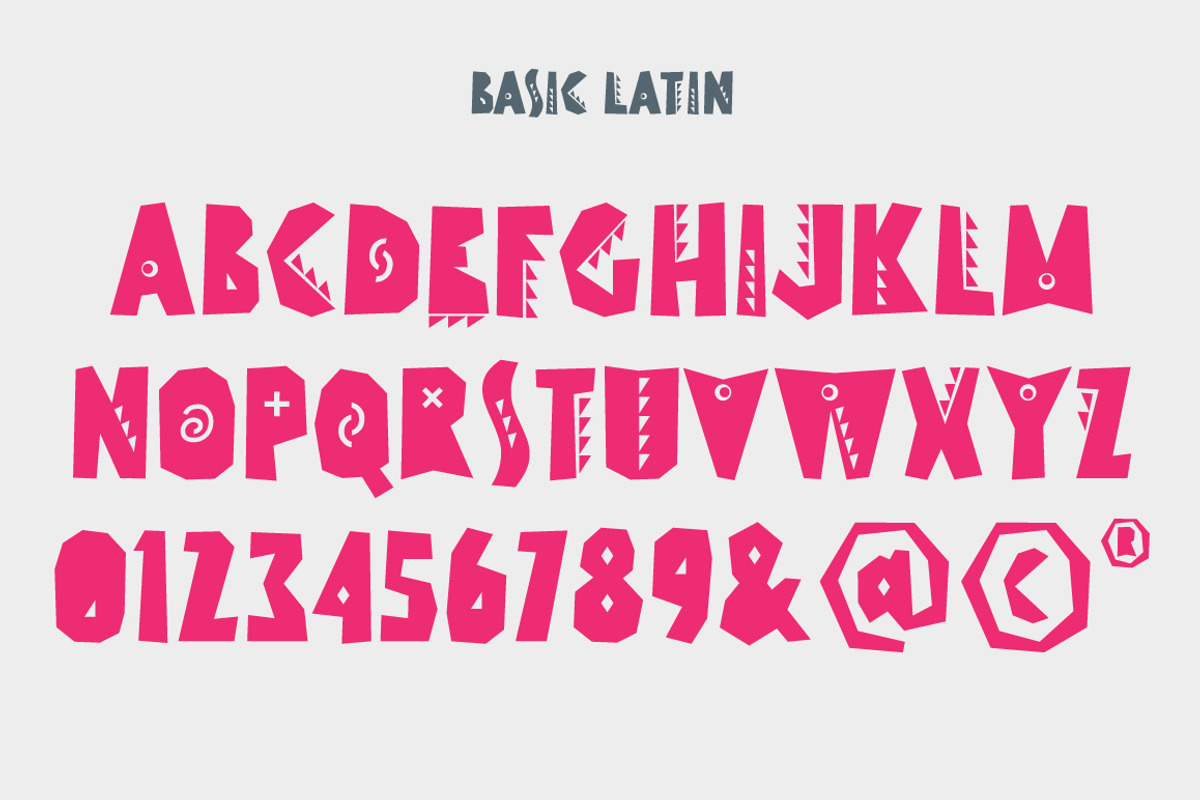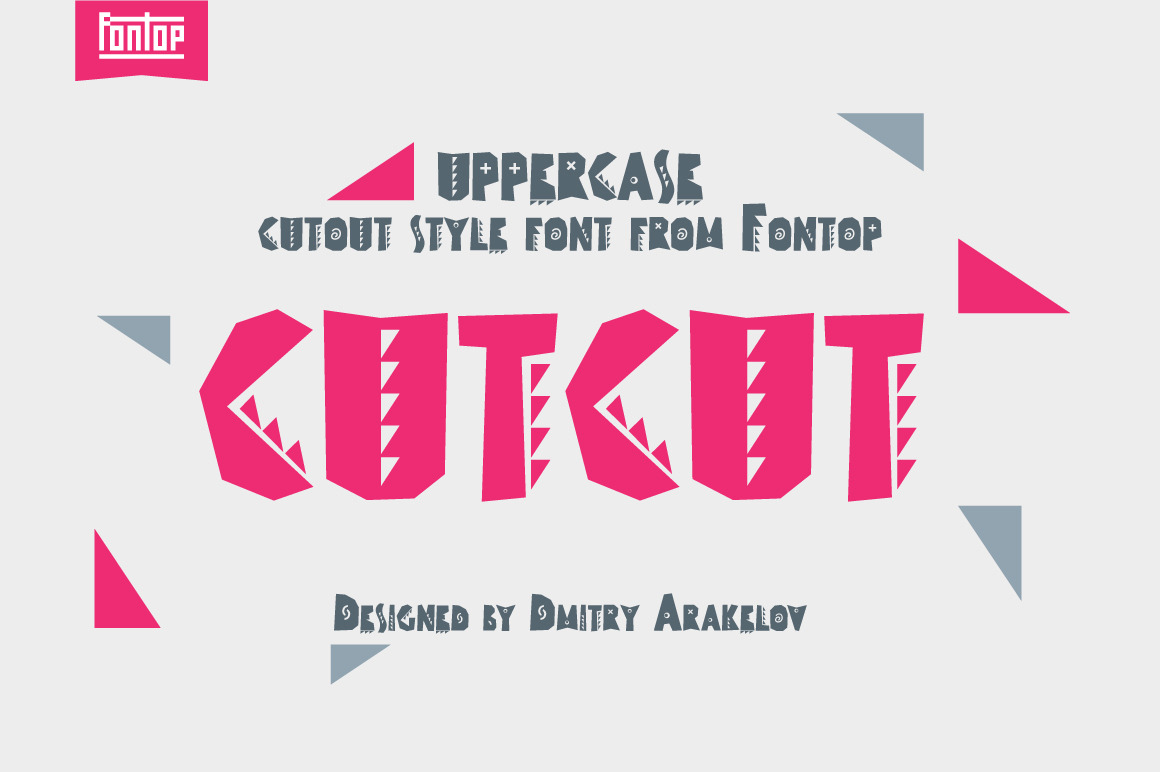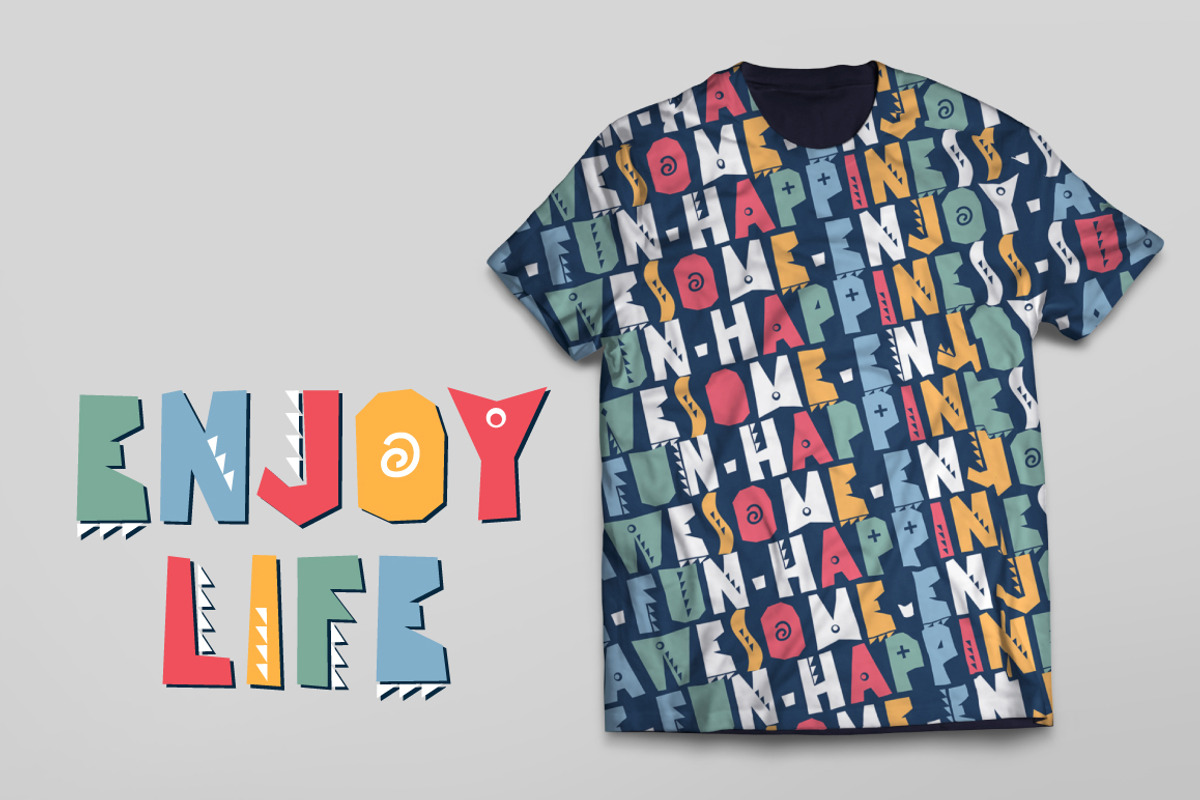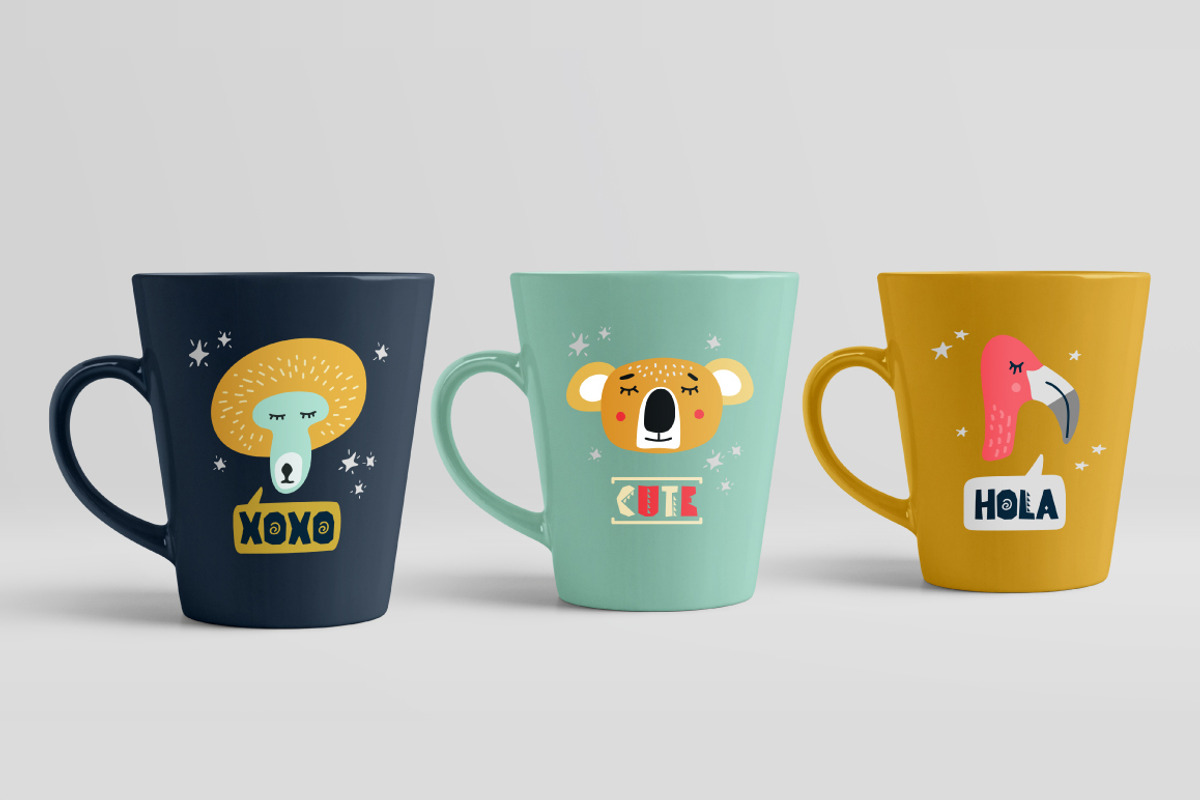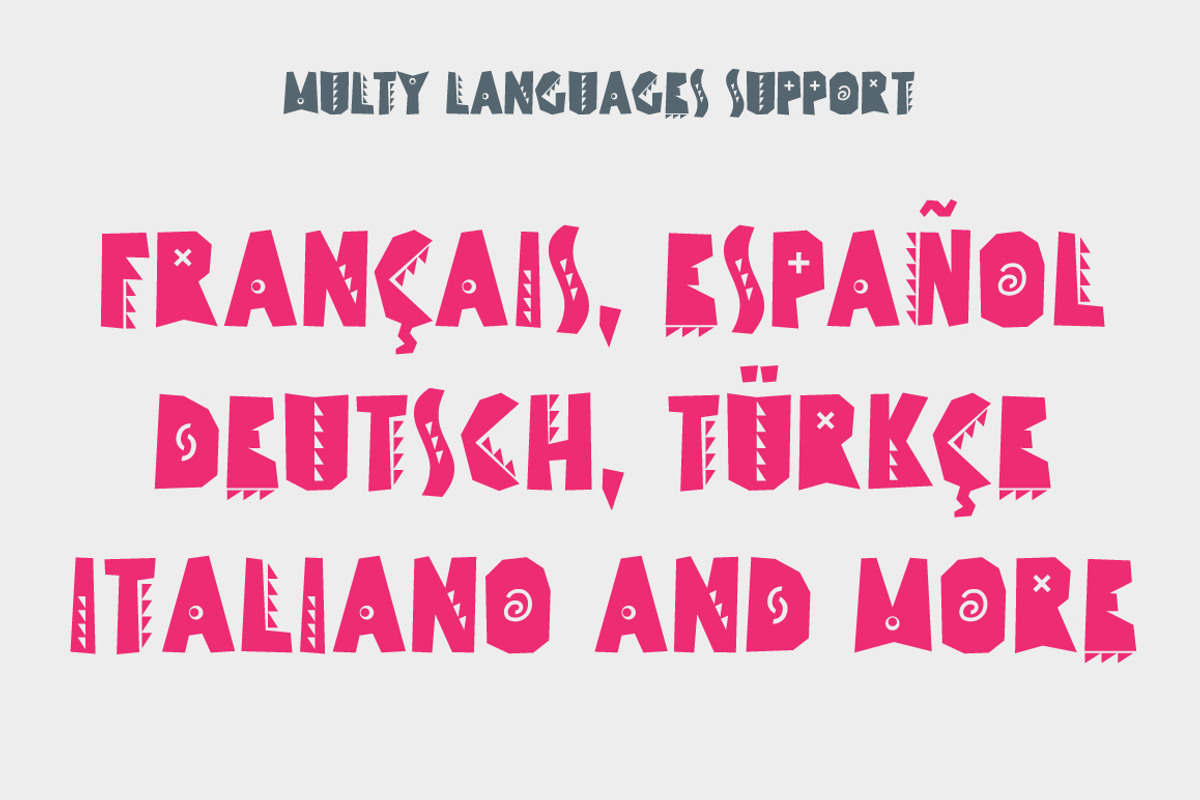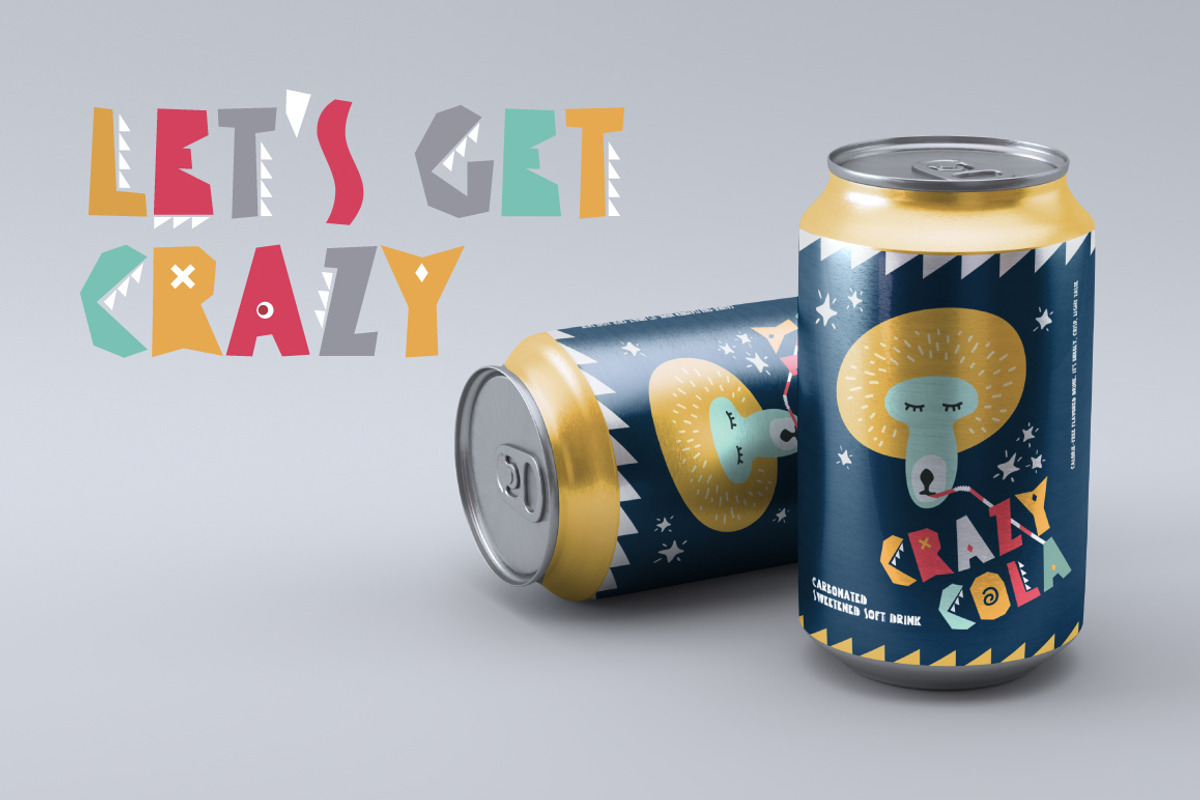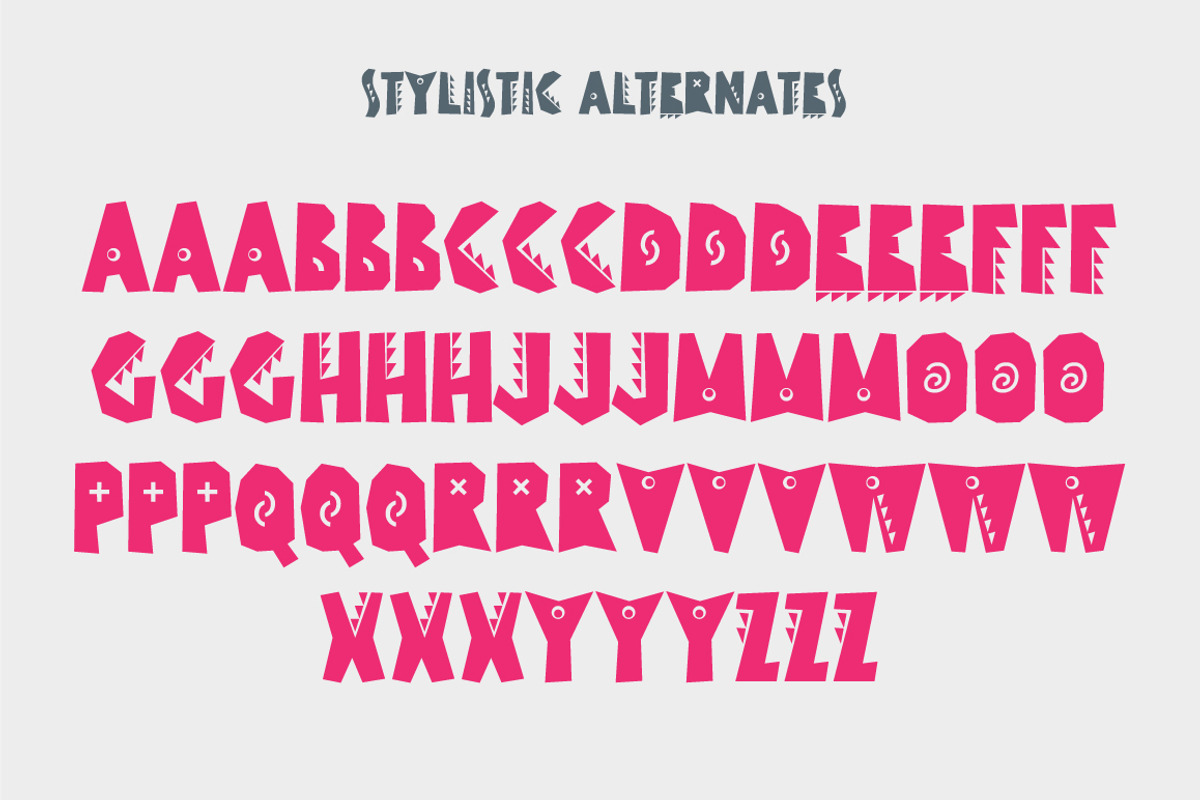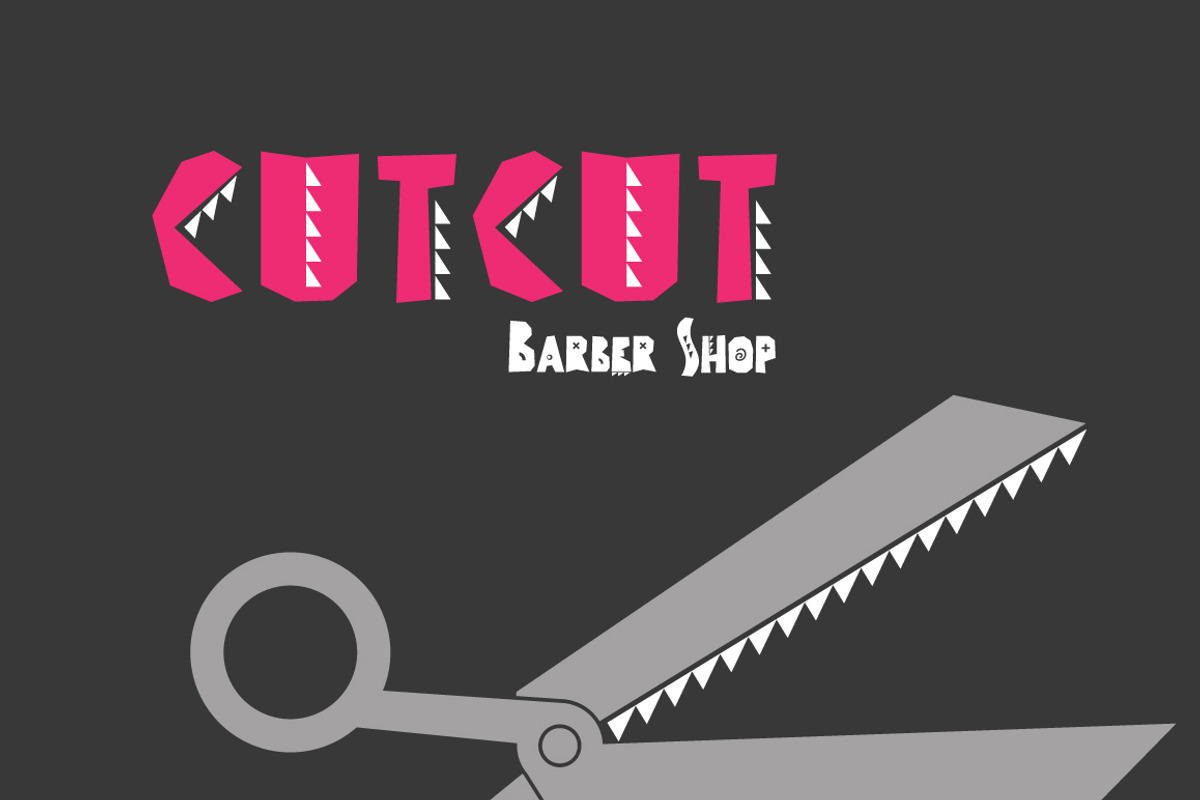
CUTCUT typeface
CUTCUT is a cute font with funny alternates that give an individual look to your cards, logos, souvenirs and so on. It also works perfectly when used in branding for some funky or hipster style products and services, as well as for kids products and designs.
The font consists of Latin multilingual support as well as uppercase letters, numbers and basic punctuations.